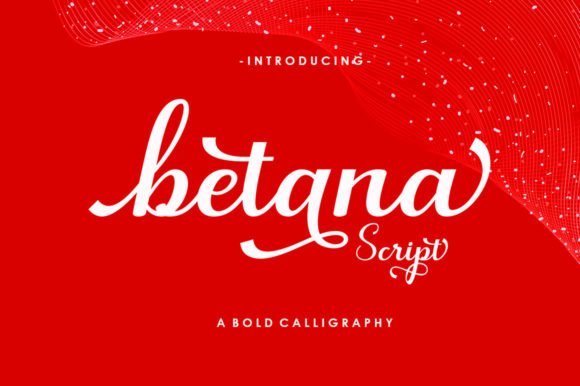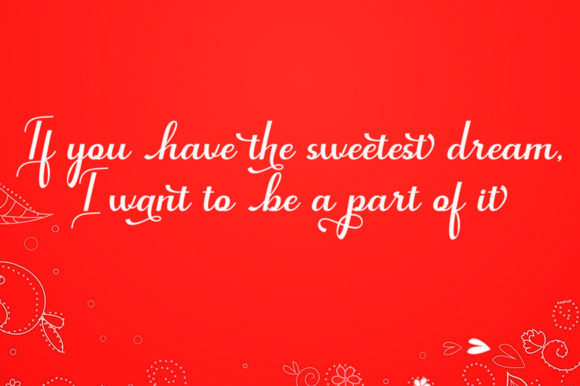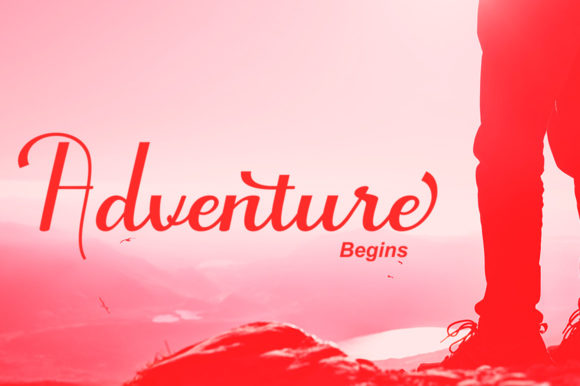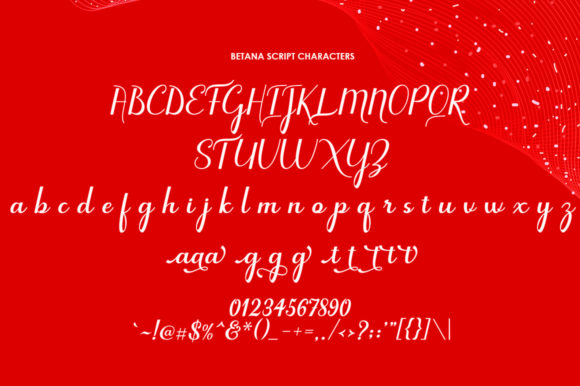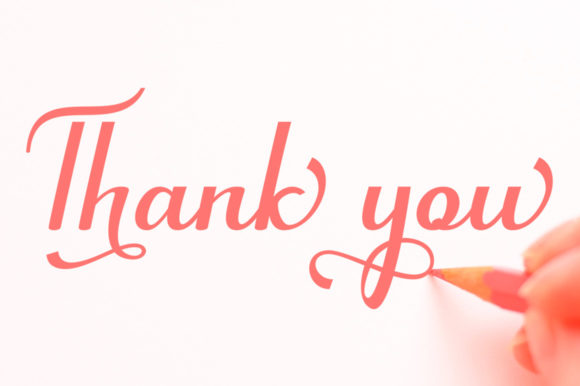
Unleash Your Creativity with the Charming Betana Script Font
Remember that moment when you finally found the perfect font to match your design vision? The one that made all the difference between a good idea and a stunning masterpiece? For many designers, that moment is what makes all the hard work worth it. For those who have been searching for that special something, we’re excited to introduce the Betana Script Font – a lovely script font featuring charming, playful characters.
With the Betana Script Font, you can add a touch of elegance and whimsy to your designs. This beautiful font is perfect for adding a personal touch to your branding, advertising materials, or even your personal projects. Its PUA encoded feature allows you to access all glyphs and swashes with ease, making it a valuable addition to any designer’s toolkit.
Betana Script Font Key Features
- Font Family: Betana Script Font is a script font, ideal for creating elegant and sophisticated designs.
- Unique Characteristics: This font features beautiful, flowing connections between letters, creating a sense of elegance and sophistication.
Betana Script Font Review
Overall, I’m quite impressed with the Betana Script Font! ✨ It has a unique, elegant feel that’s perfect for creative projects or designs that require a touch of sophistication. The font’s script style makes it ideal for use in headings or titles, where it can add a sense of drama and flair.
Here are some of the things I like about Betana Script Font:
- ✨ The font’s flowing lines and connected letters create a beautiful, handwritten feel.
- ✨ It’s highly legible, even at smaller font sizes, making it suitable for use in a variety of contexts.
- ✨ The font comes in a range of weights and styles, giving designers plenty of options for customizing their designs.
However, I do have a few concerns about Betana Script Font:
- ⚠️ The font may not be suitable for use in formal or professional settings, as its script style can come across as a bit too playful or informal.
- ⚠️ Some of the letterforms may not be as polished or refined as those found in other script fonts, which could be a drawback for designers who prioritize precision and attention to detail.
Overall, I think Betana Script Font is a great choice for designers who want to add a touch of elegance and sophistication to their projects. While it may have some limitations, its unique style and versatility make it a valuable addition to any design toolkit.
Experiment with different font sizes, colors, and styles to create a unique look.
Use the Betana Script Font for titles, headings, and other emphasis text.
Combine it with other fonts for a visually appealing contrast.
The Betana Script Font is ideal for:
Branding and logos
Quotes and inspirational graphics
Digital art and illustrations
Alternatives to Betana Script Font for Designers
Carolyna Pro is a beautiful, elegant script font that works well for invitations, branding, and editorial design. It’s ideal for creating a sophisticated and high-end feel. When to use: Wedding invitations, luxury branding, and high-end editorial design.
Carolyna Pro and Betana Script Font share similar characteristics, such as their elegant and refined feel. However, Carolyna Pro has a more subtle and understated look, making it perfect for designs that require a touch of sophistication.
Alex Brush is a calligraphic script font that adds a touch of elegance and sophistication to any design. It’s ideal for use in branding, advertising, and editorial design. When to use: Luxury branding, advertising, and editorial design that requires a touch of sophistication.